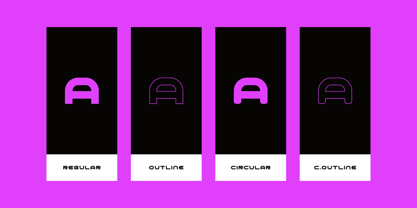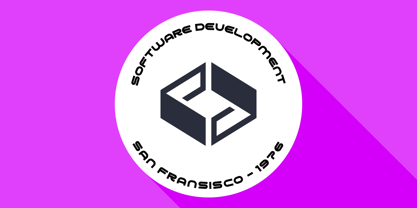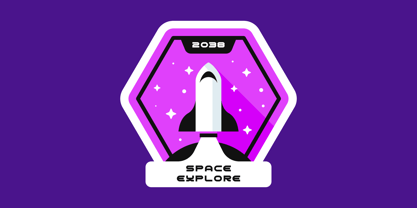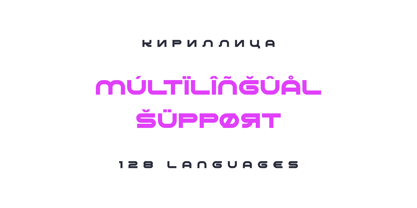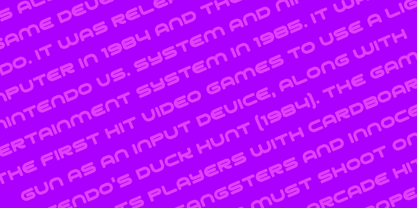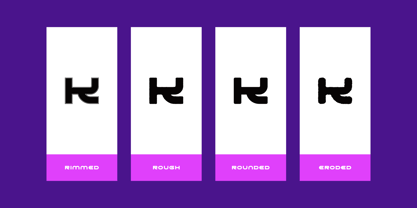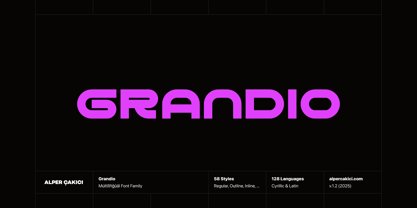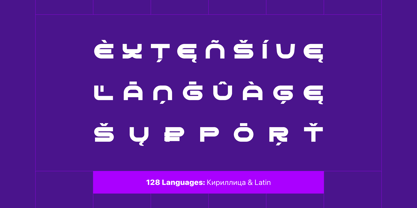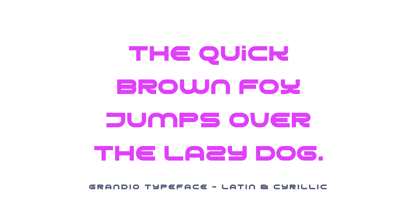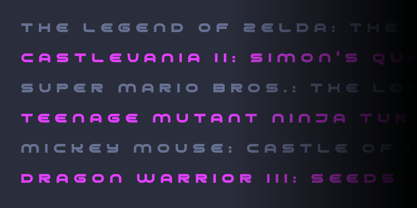
Grandio
The Grandio Font Family was designed by Alper Çakıcı and published by AlperCakici. Grandio contains 1 styles.
Grandio is not just a font; it's a statement in modern design and functionality. This bold typeface boasts impeccable kerning, ensuring a seamless and visually appealing reading experience both online and in print. With its full support for the Cyrillic language, Grandio facilitates effortless multilingual communication, making it a go-to choice for diverse content needs.
What sets Grandio apart is its unique blend of classic proportions and contemporary flair. This distinctive design approach sets it apart from other fonts in the same category, giving your projects a touch of sophistication and individuality. Whether you're crafting a digital masterpiece or designing a print publication, Grandio elevates your typography game to new heights.
Key Features of Grandio Font:
• Modern and versatile
• Bold yet refined
• Excellent kerning for readability
• Full support for Cyrillic language
• Perfect for digital and print applications
Experience the power of Grandio font and transform your text into a visual masterpiece that captivates and communicates with precision.